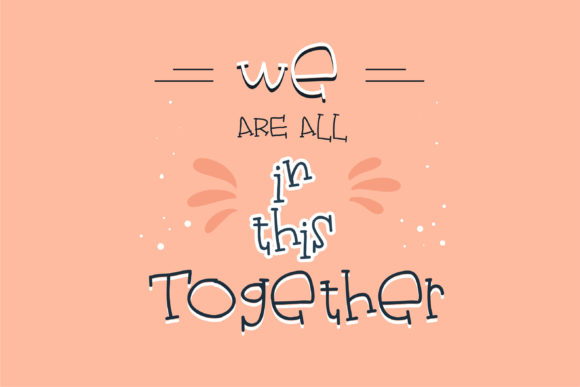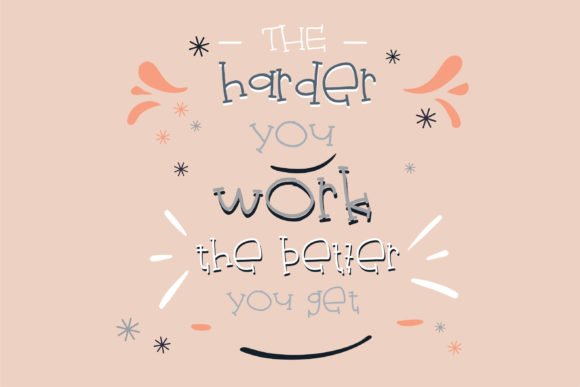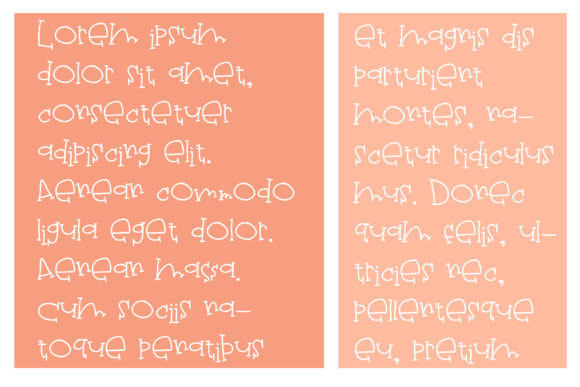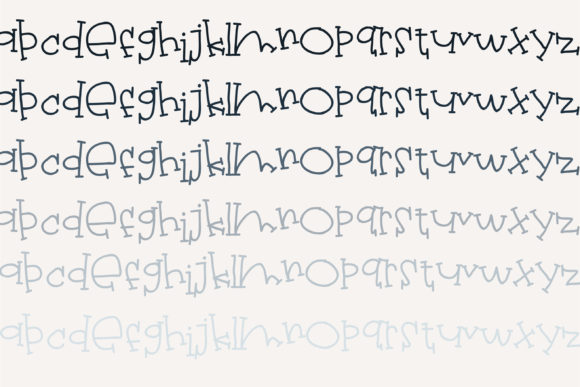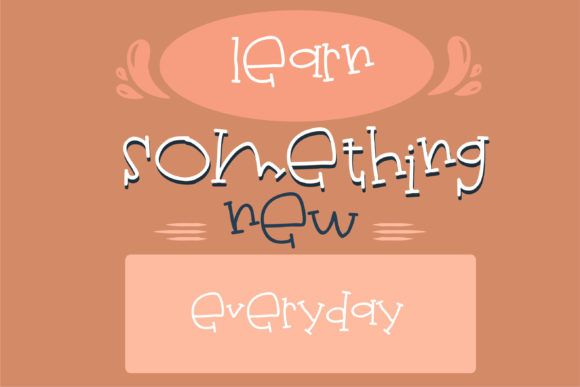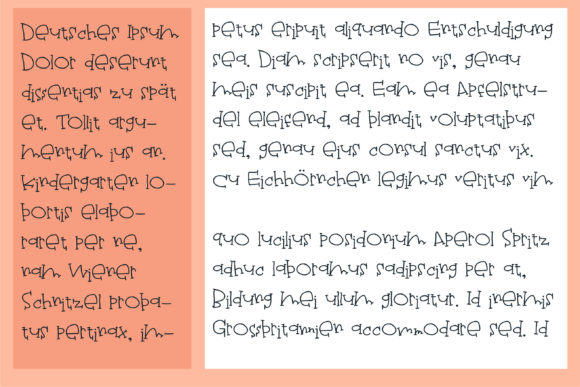
Introduction to Little Tikes Font
This whimsical serif font has a fun and youthful feel, perfect for creative projects related to babies, kids, kindergarten, or school.
Key Features of Little Tikes Font
Why Choose Little Tikes Font?
Little Tikes Font offers exceptional quality and versatility, making it a valuable addition to your design toolkit. Whether you’re creating for personal projects or commercial use, Little Tikes Font delivers professional results.